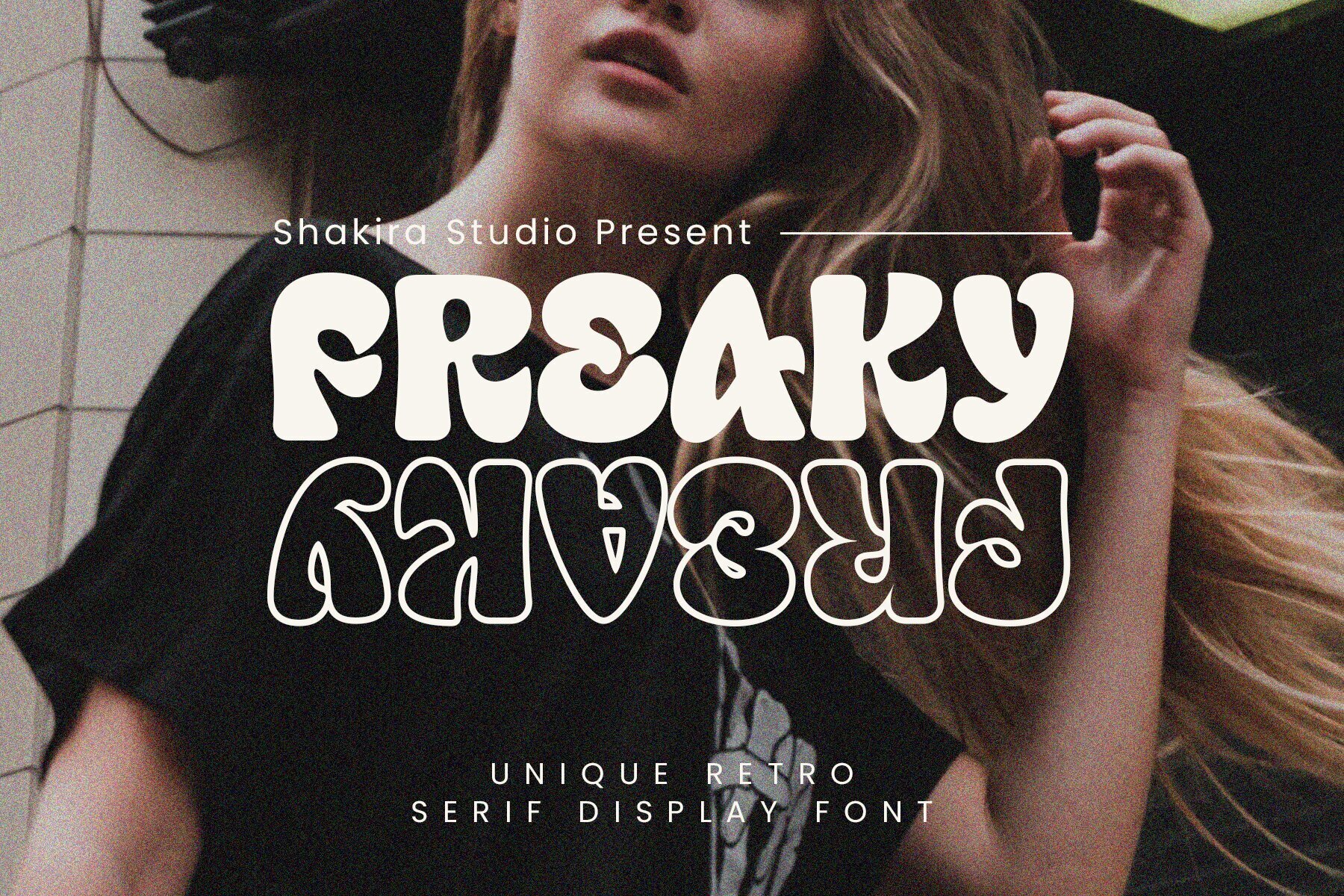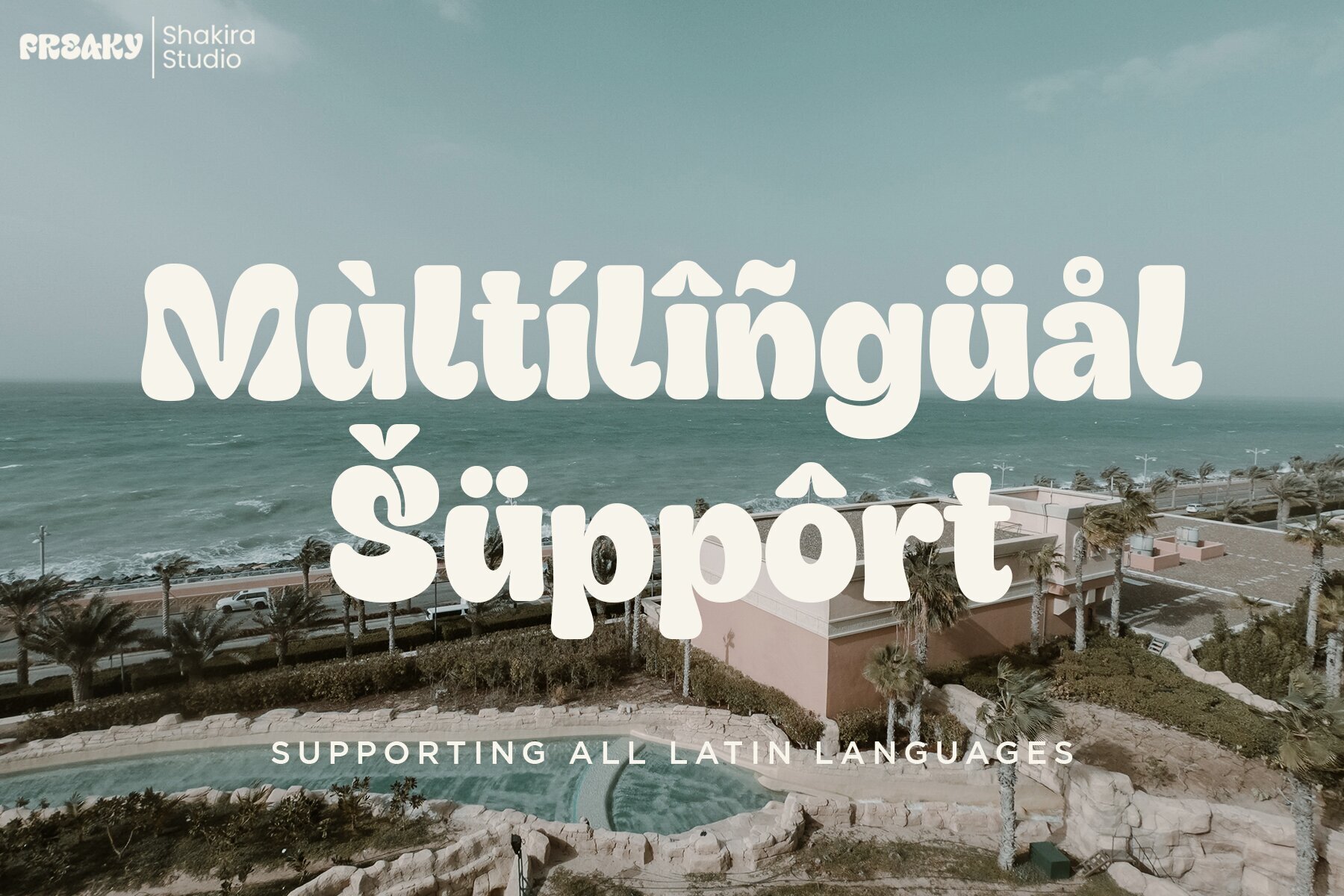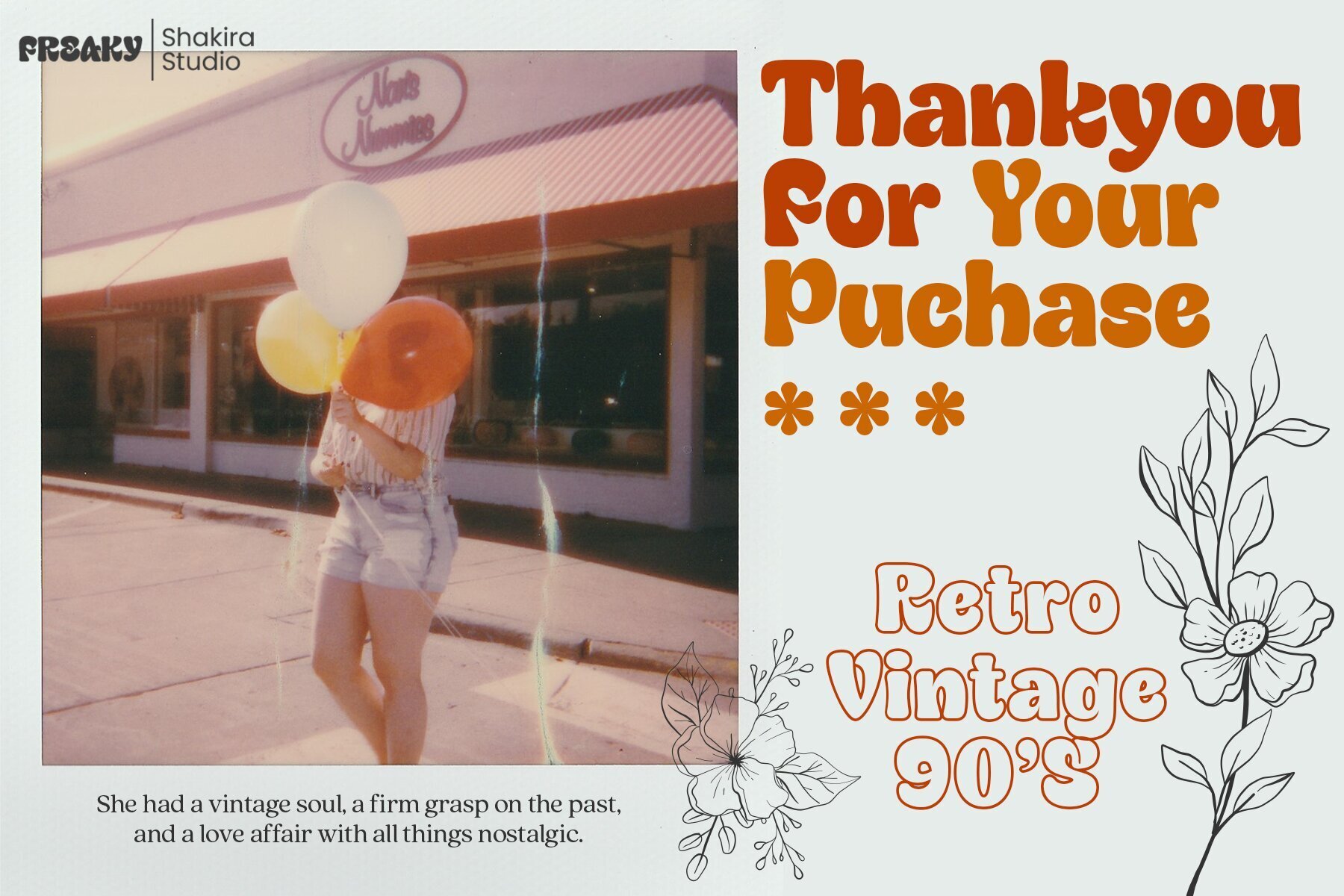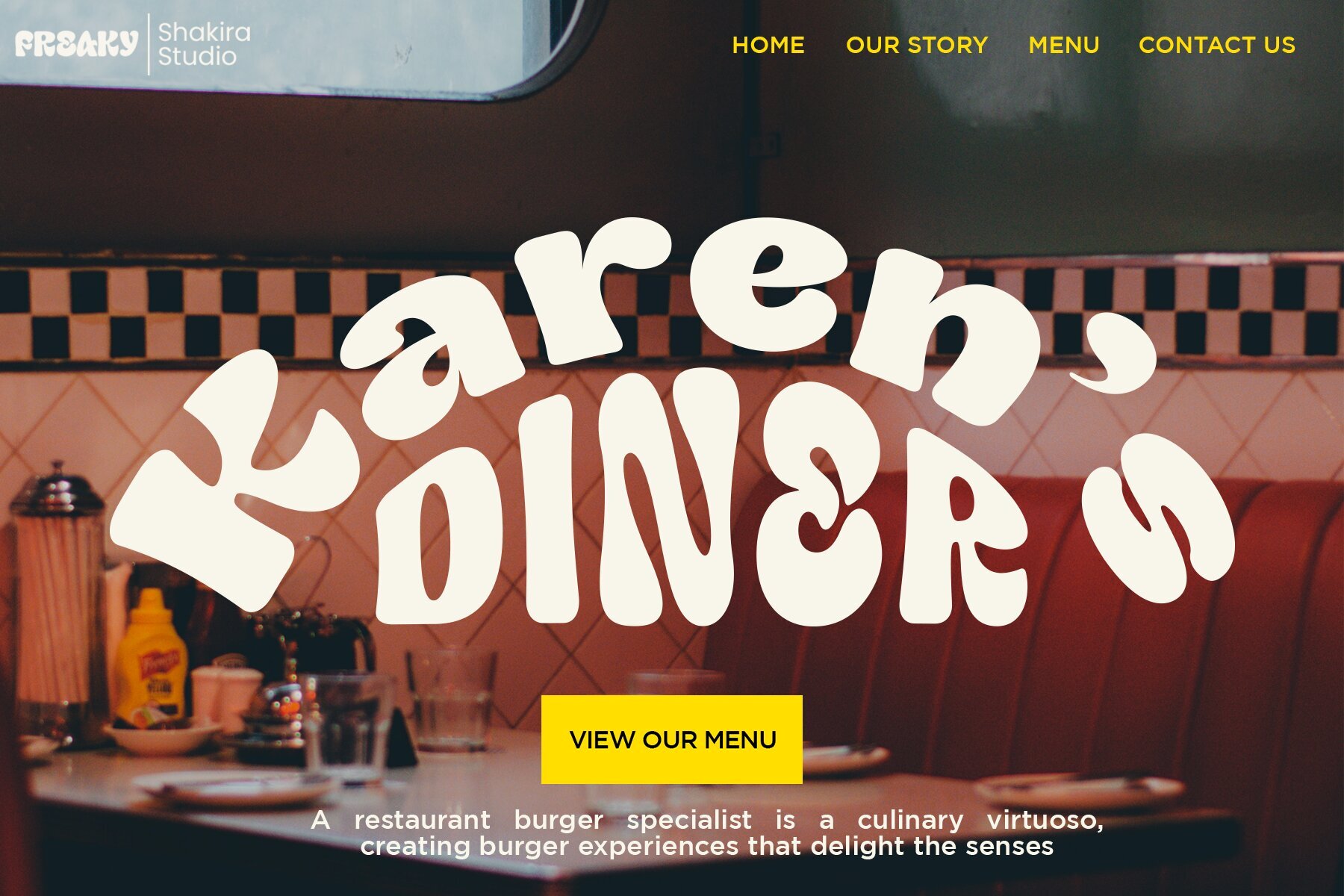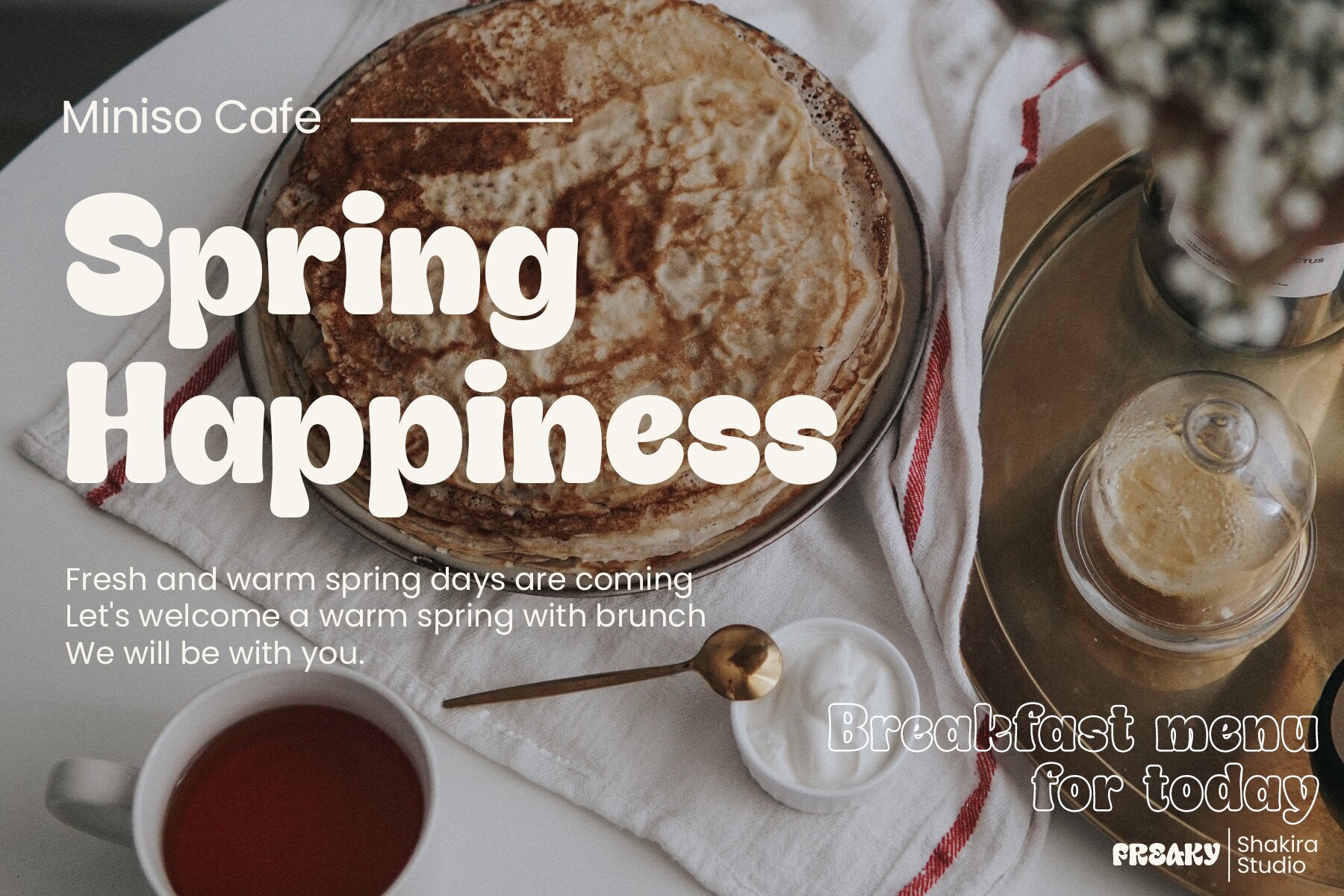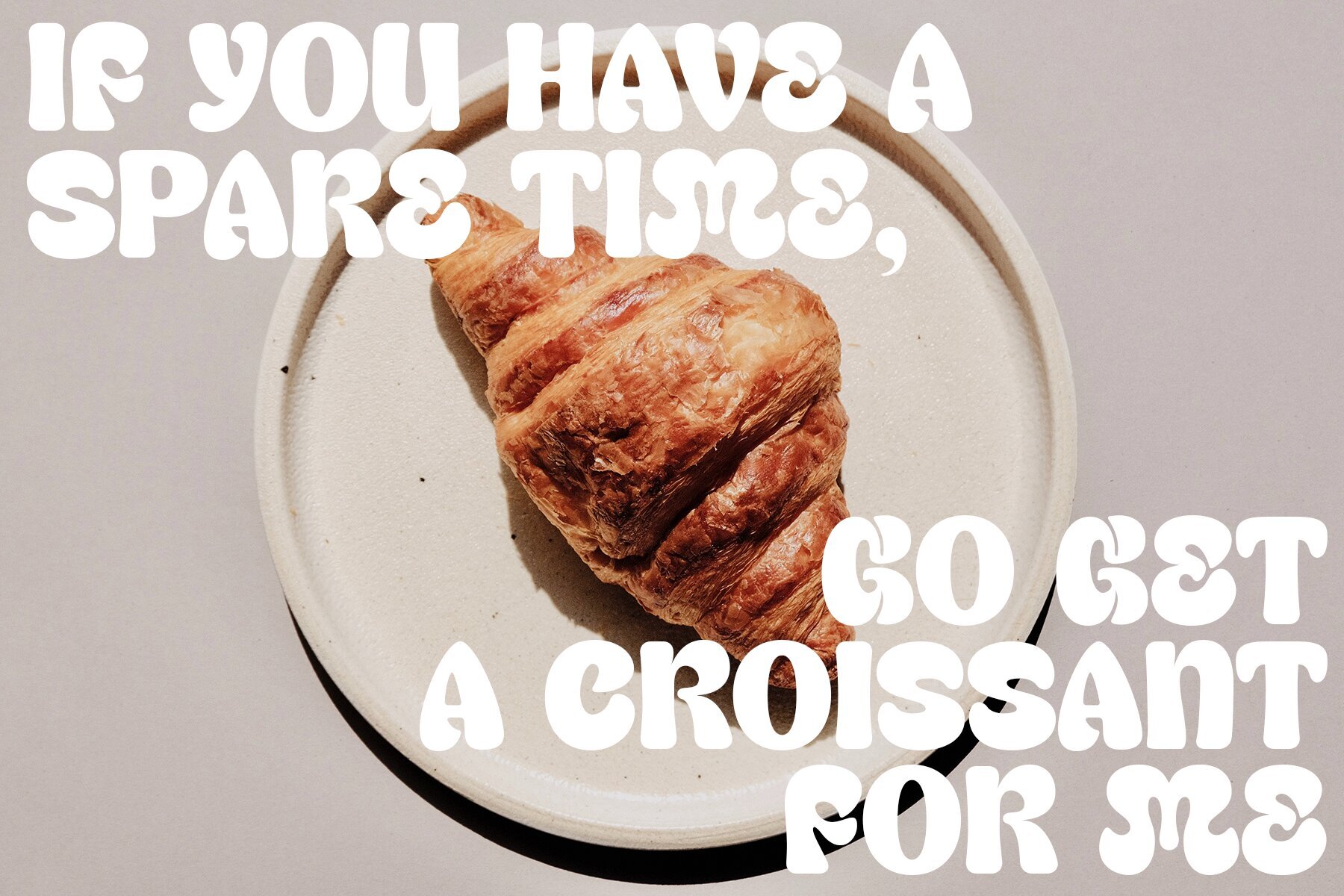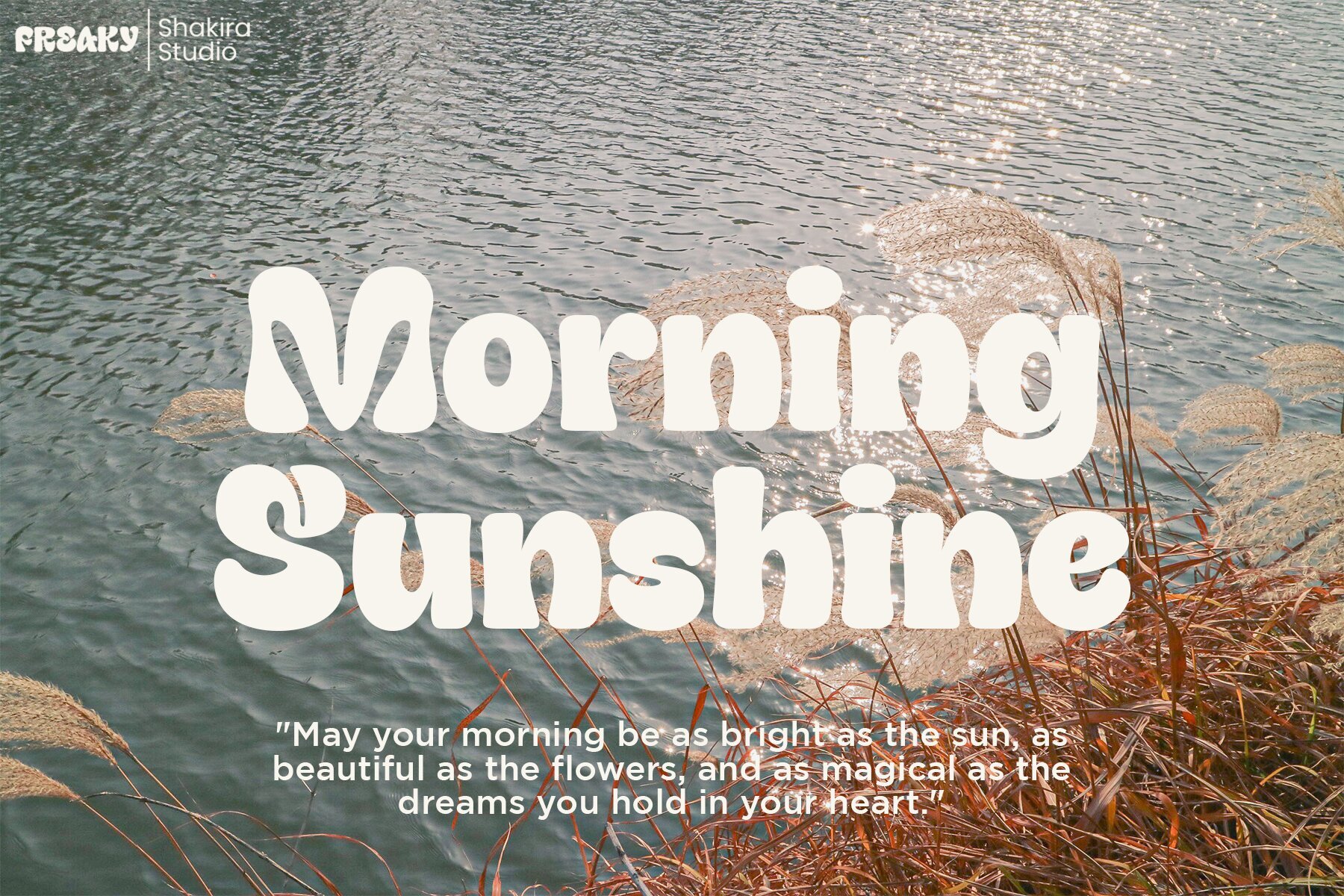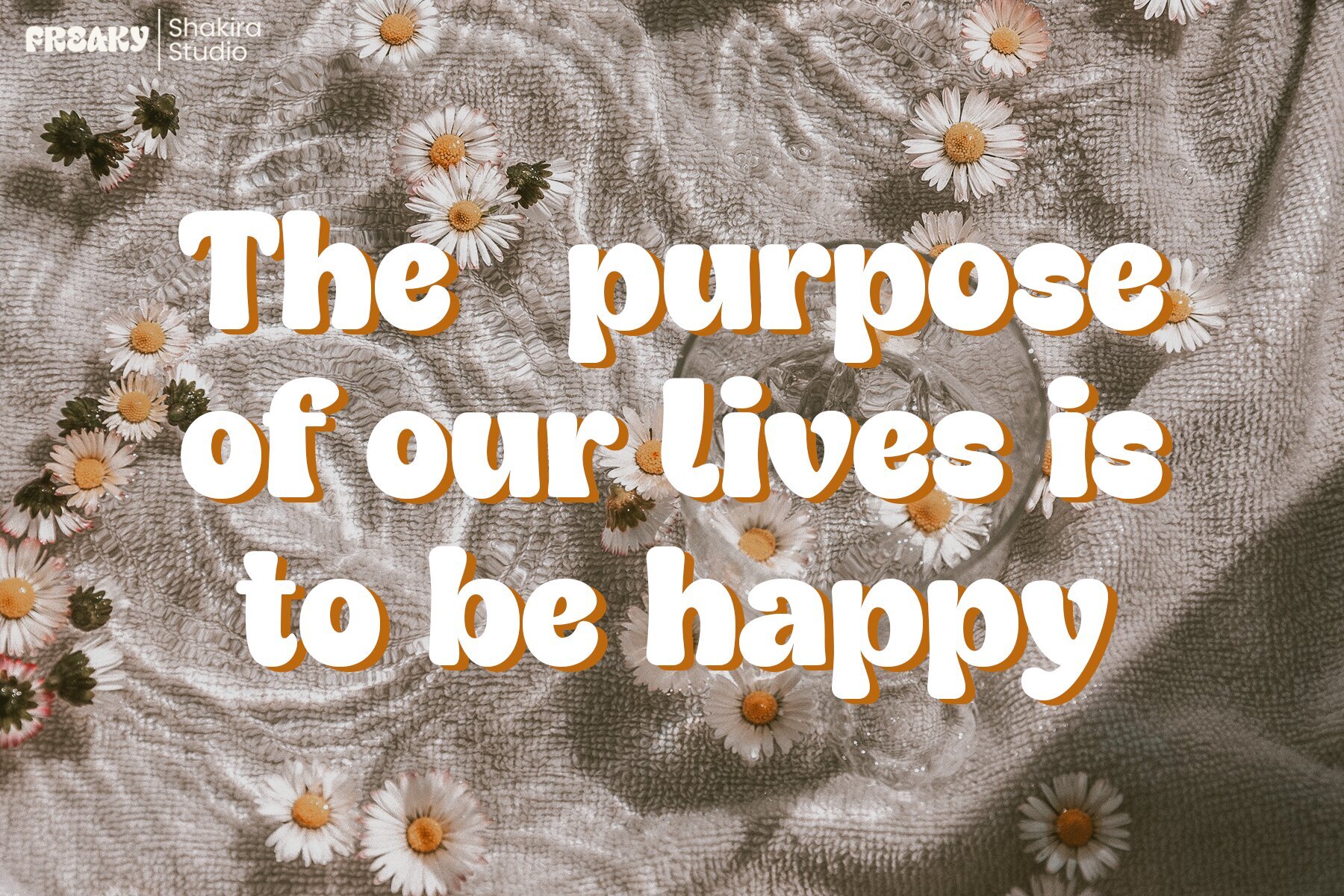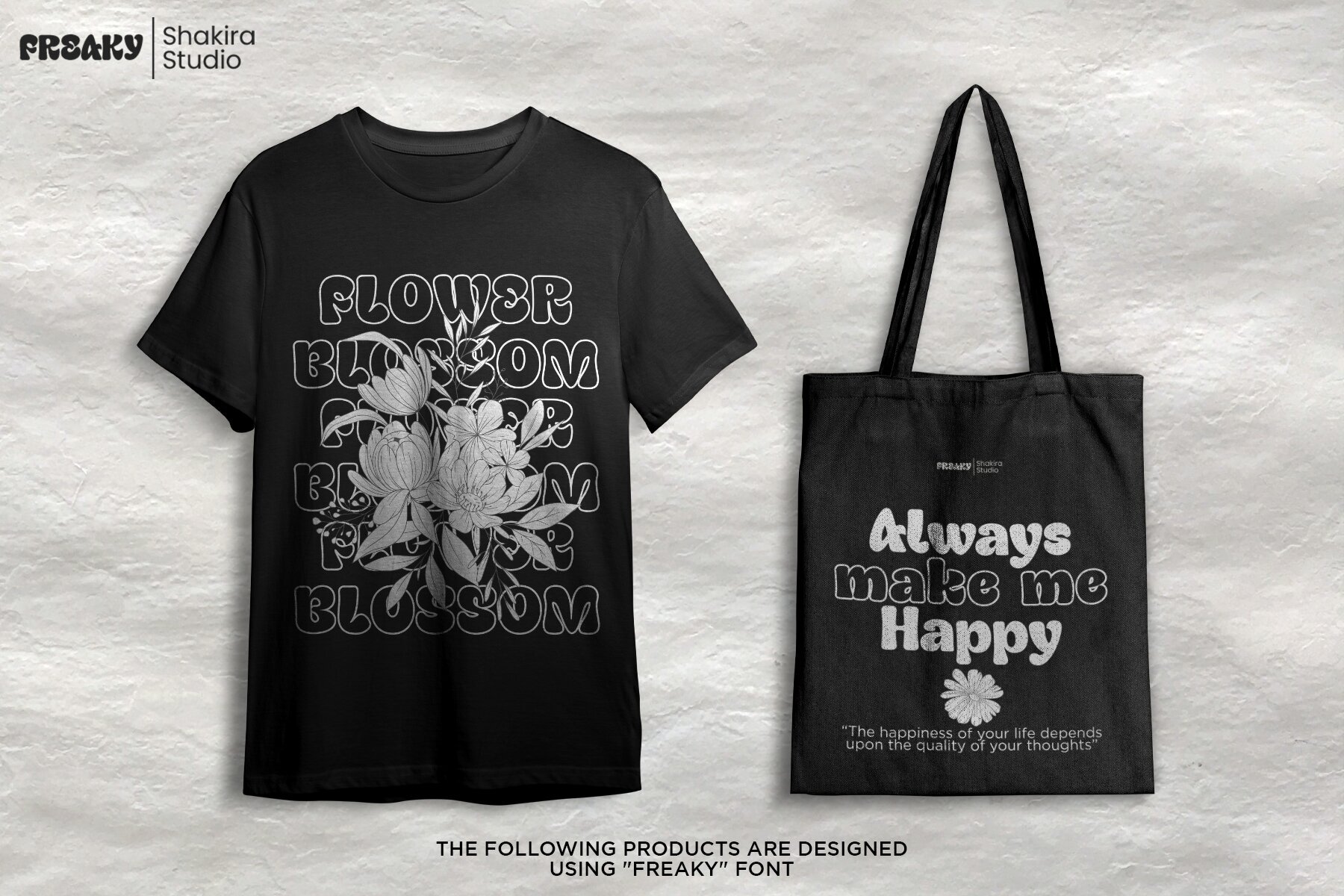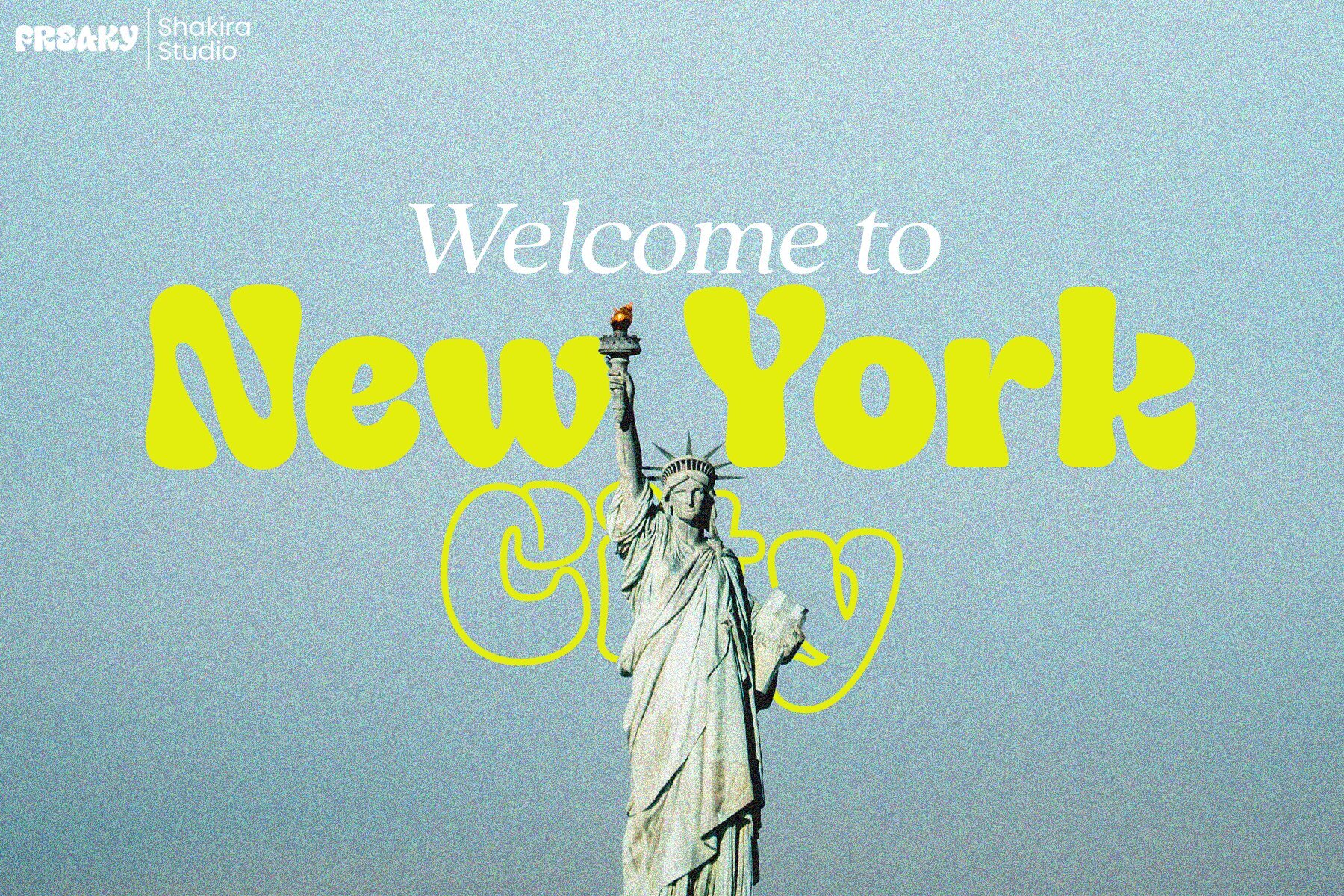
Freaky Font
Freaky Regular
Freaky Outline
Introducing Freaky, a distinct display serif font featuring regular and outline versions. It delivers a captivating and eccentric aesthetic across various design projects. With unique letterforms, compatibility on PC and Mac, easy installations, and accessibility in popular design software like Adobe Illustrator, Adobe Photoshop, Microsoft Word, and Canva, Freaky offers a memorable visual touch. Enjoy PUA encoded characters and full accessibility without the need for additional design software.